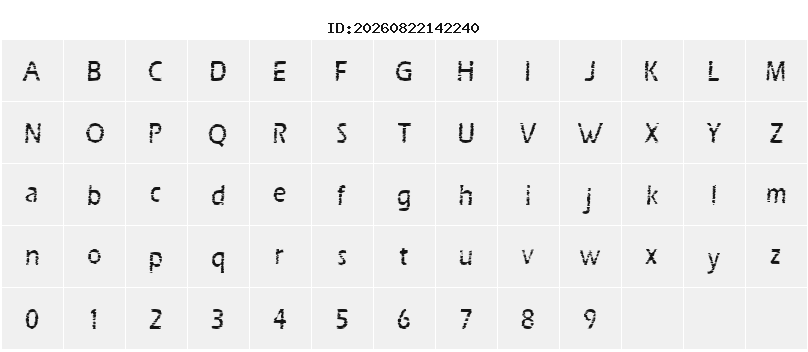
Scratch Board Preview
• Font Name: Scratch Board
• Full Font Name: Scratch Board
About Scratch Board.ttf
Scratch Board.ttf is a modern, elegant sans-serif font designed for ultimate readability and visual harmony. Perfect for branding, headlines, web design, and print materials.